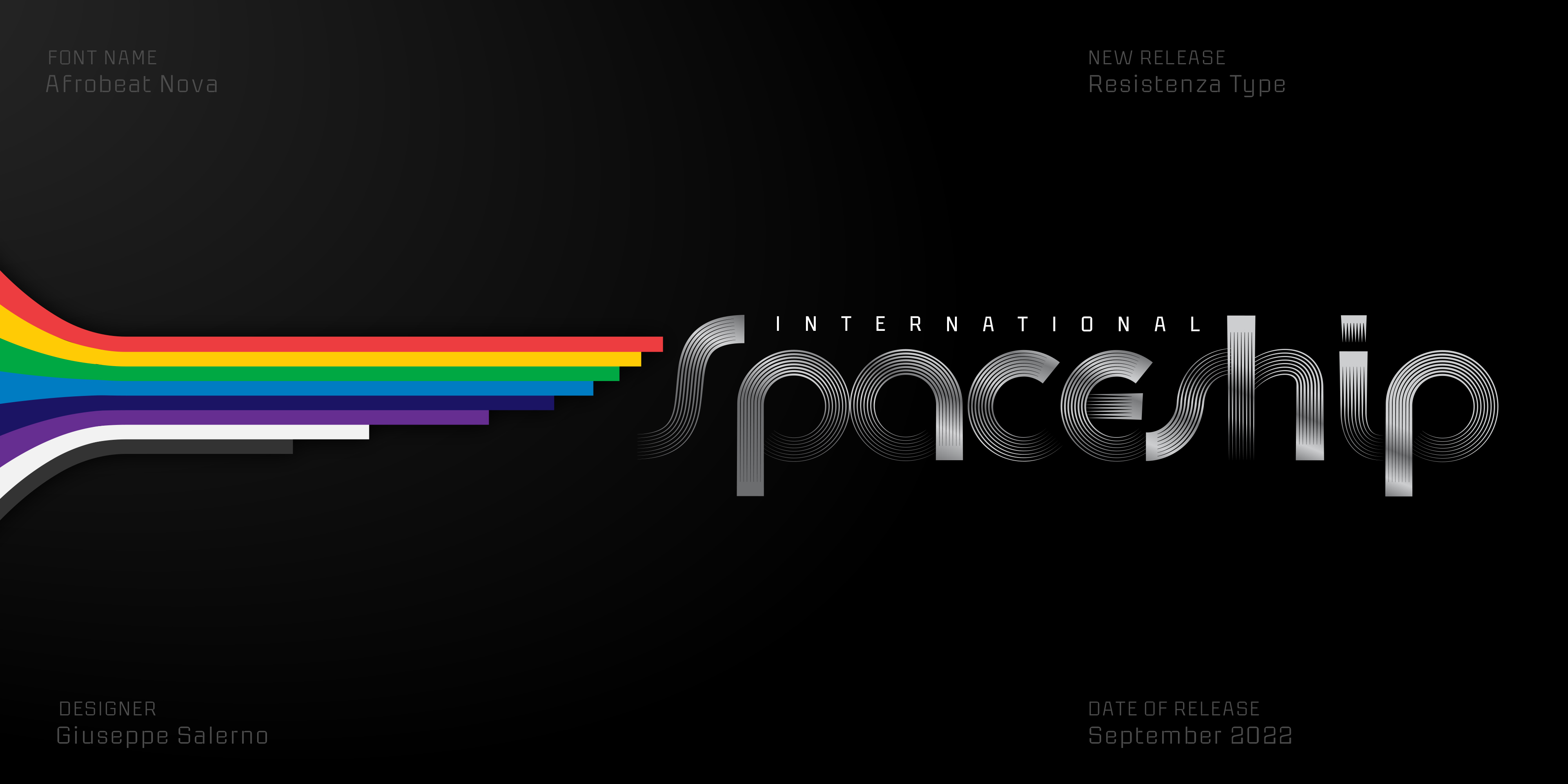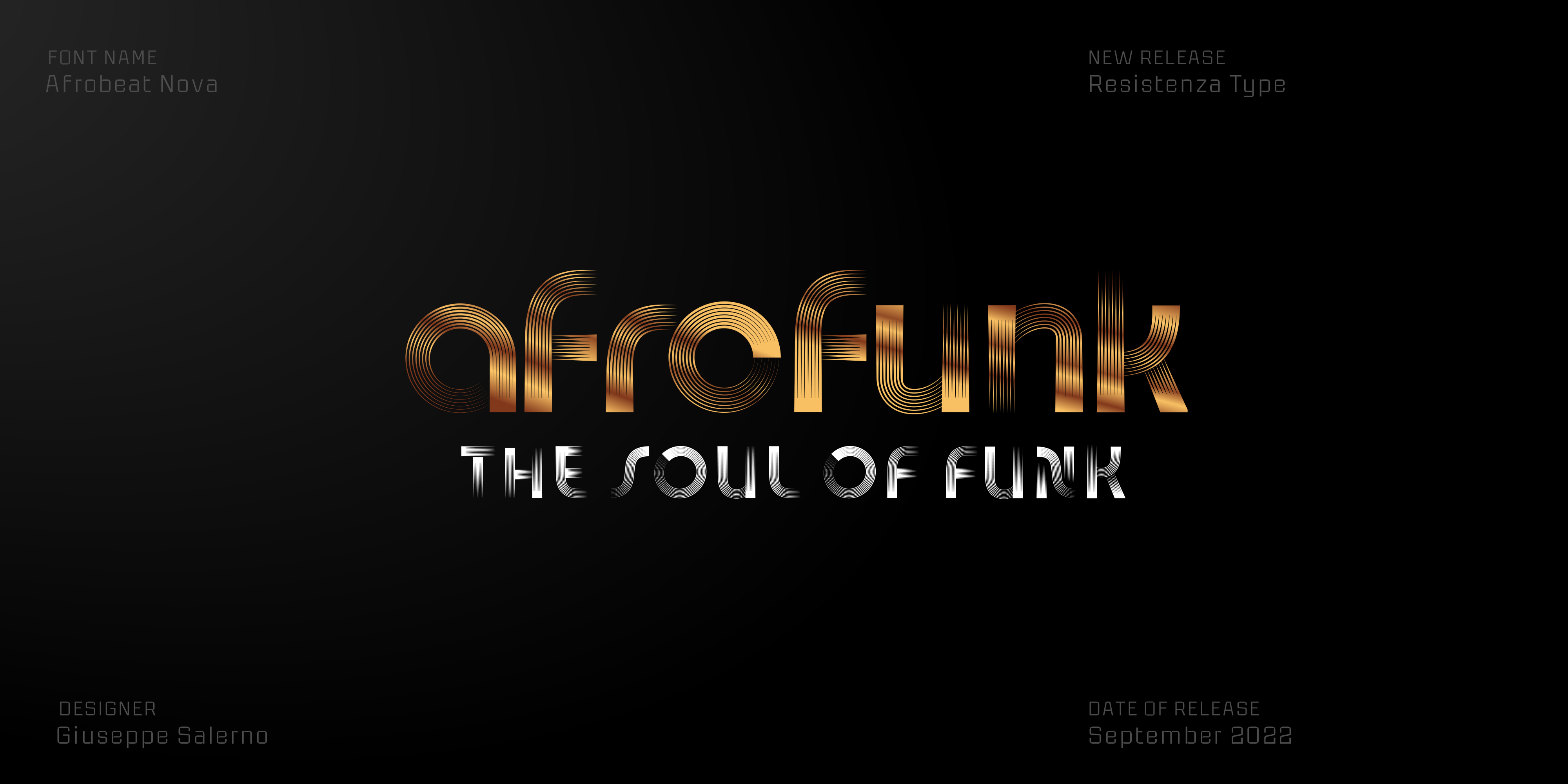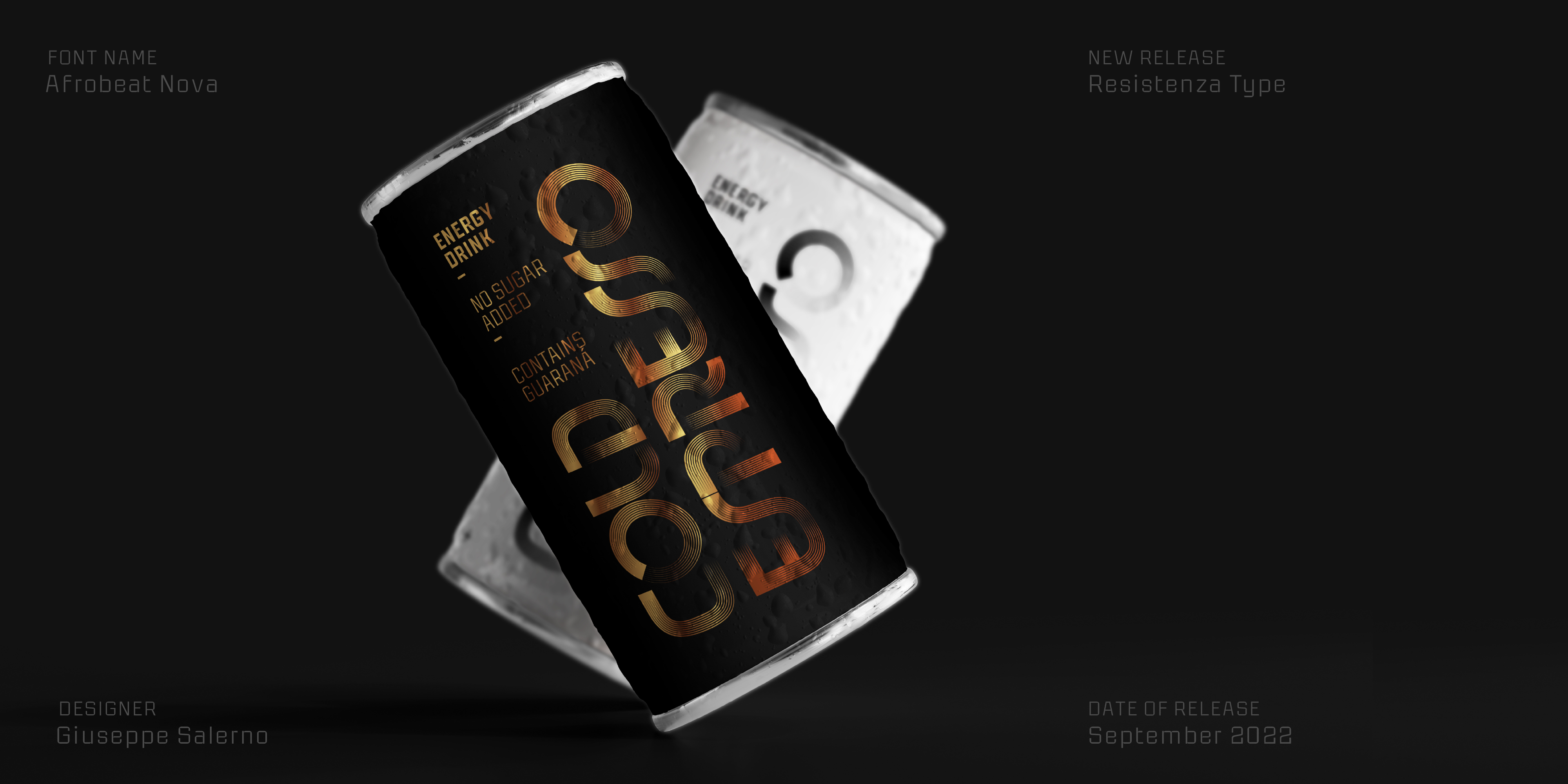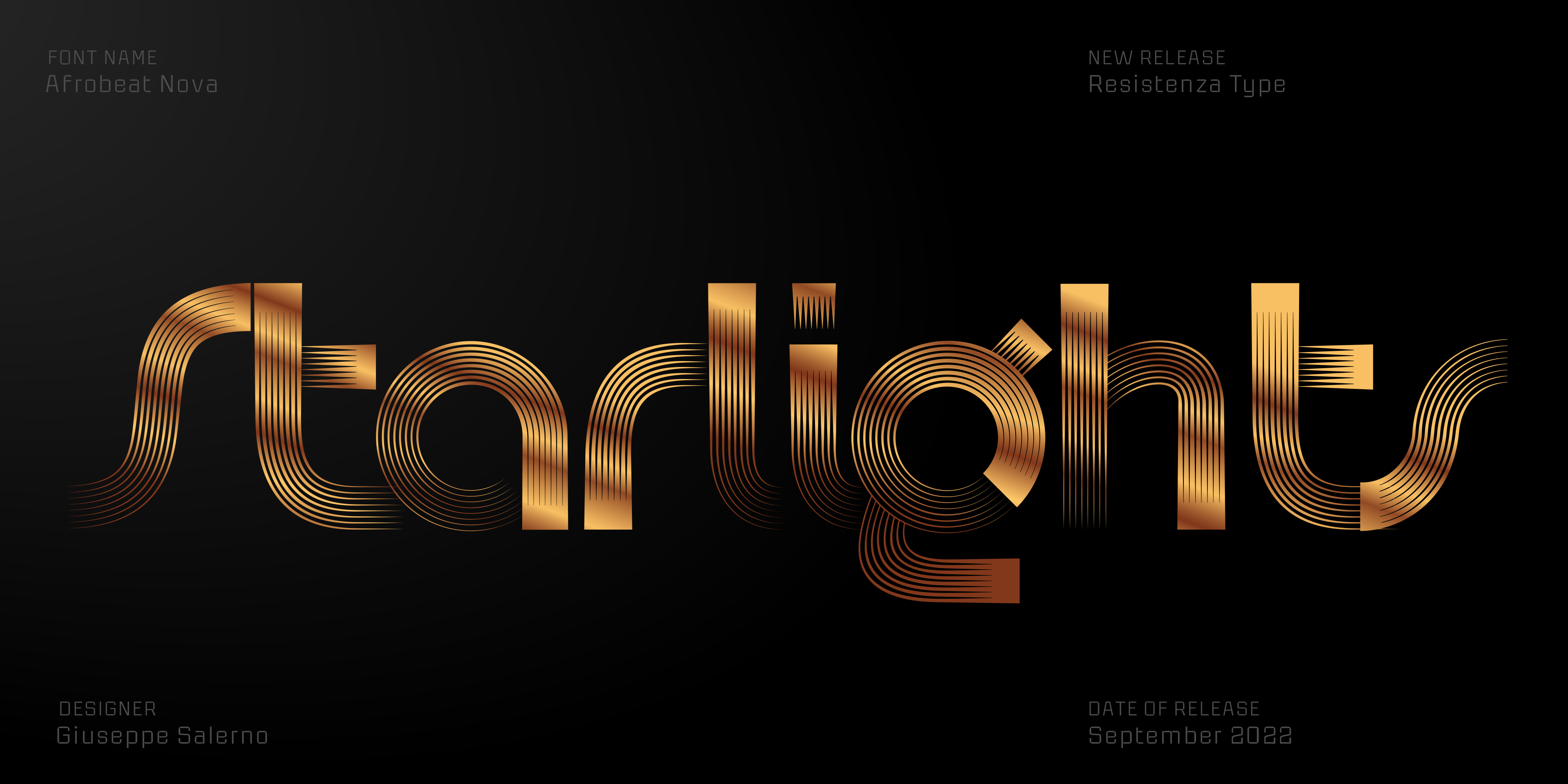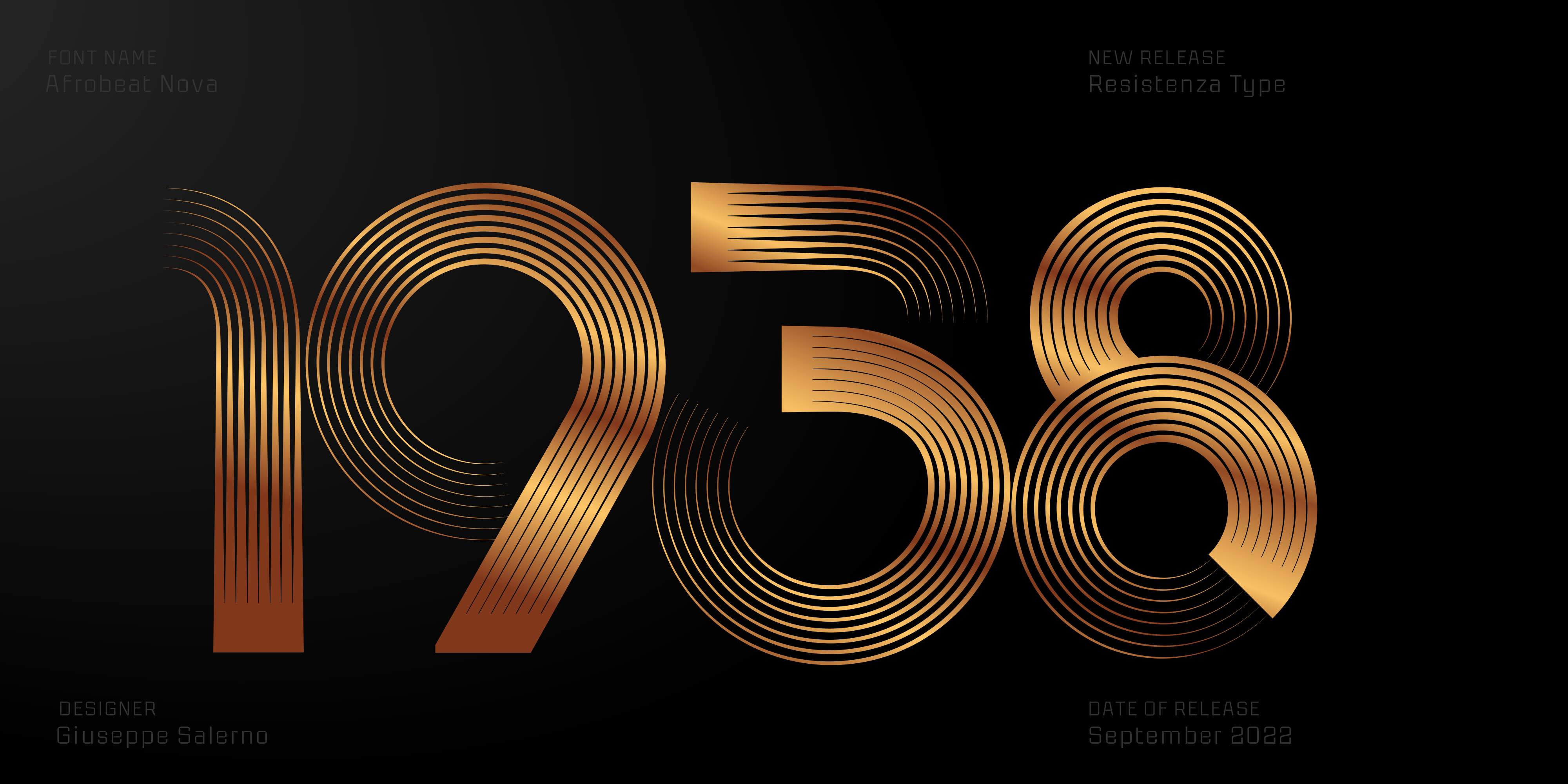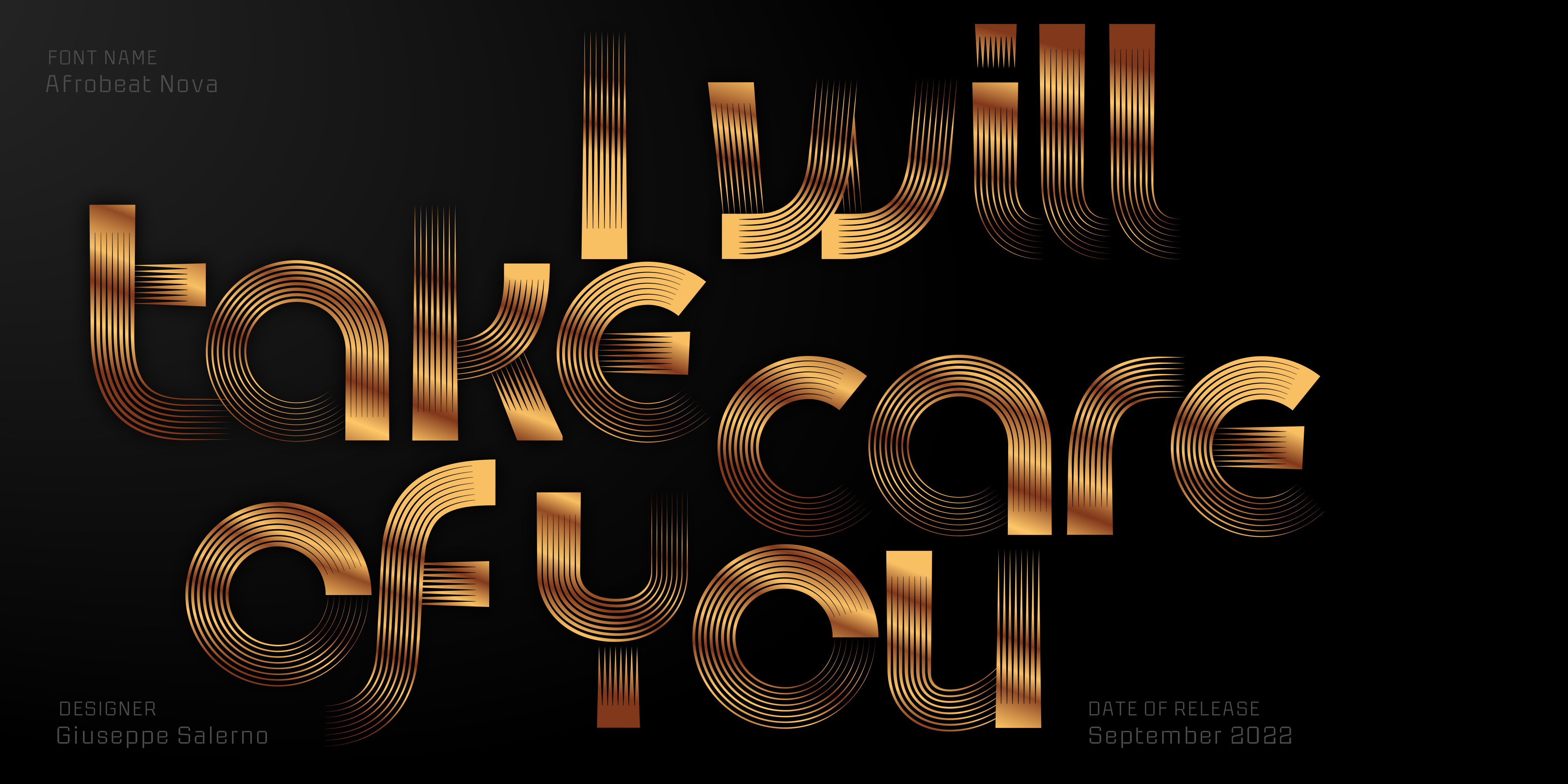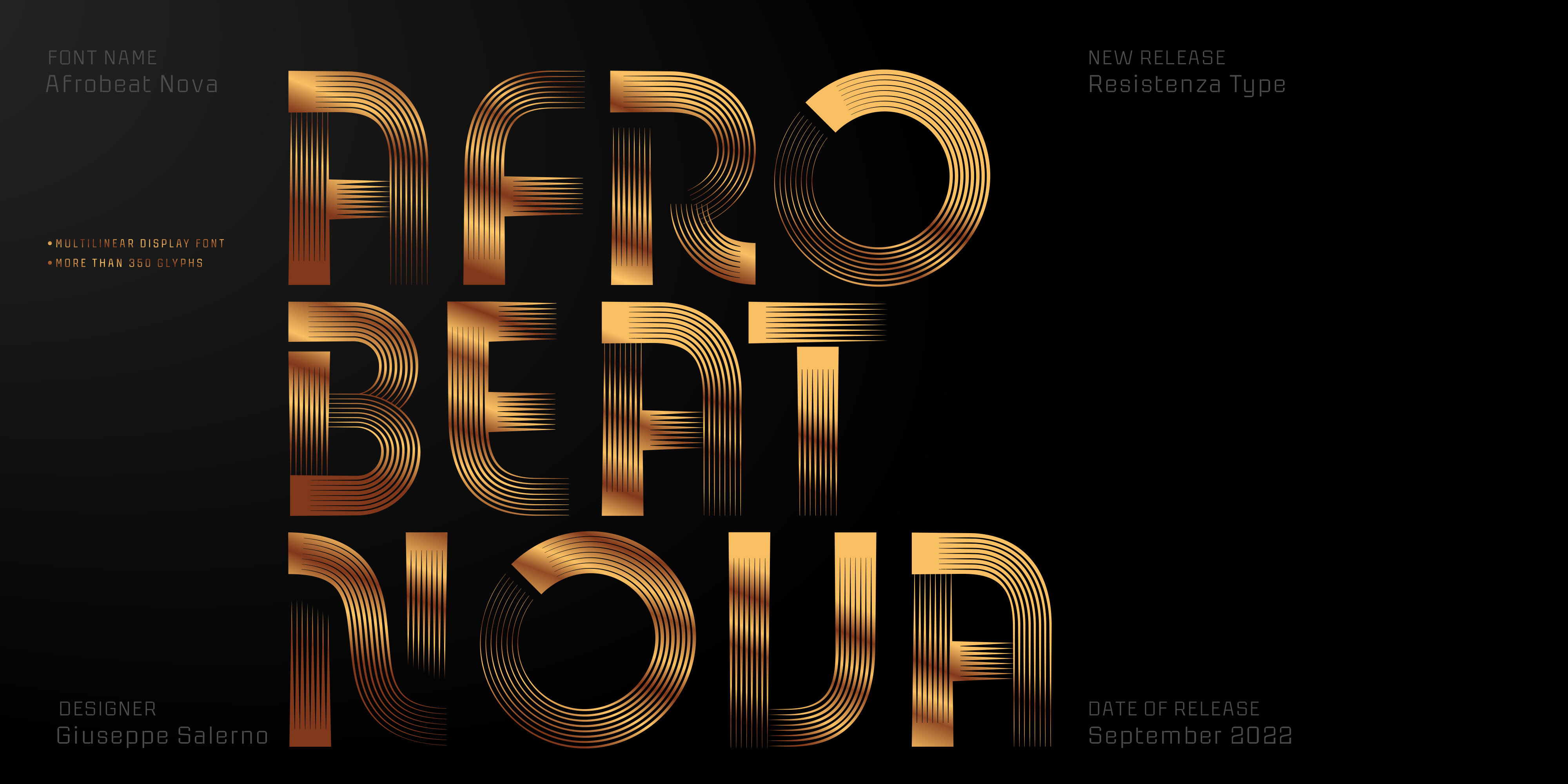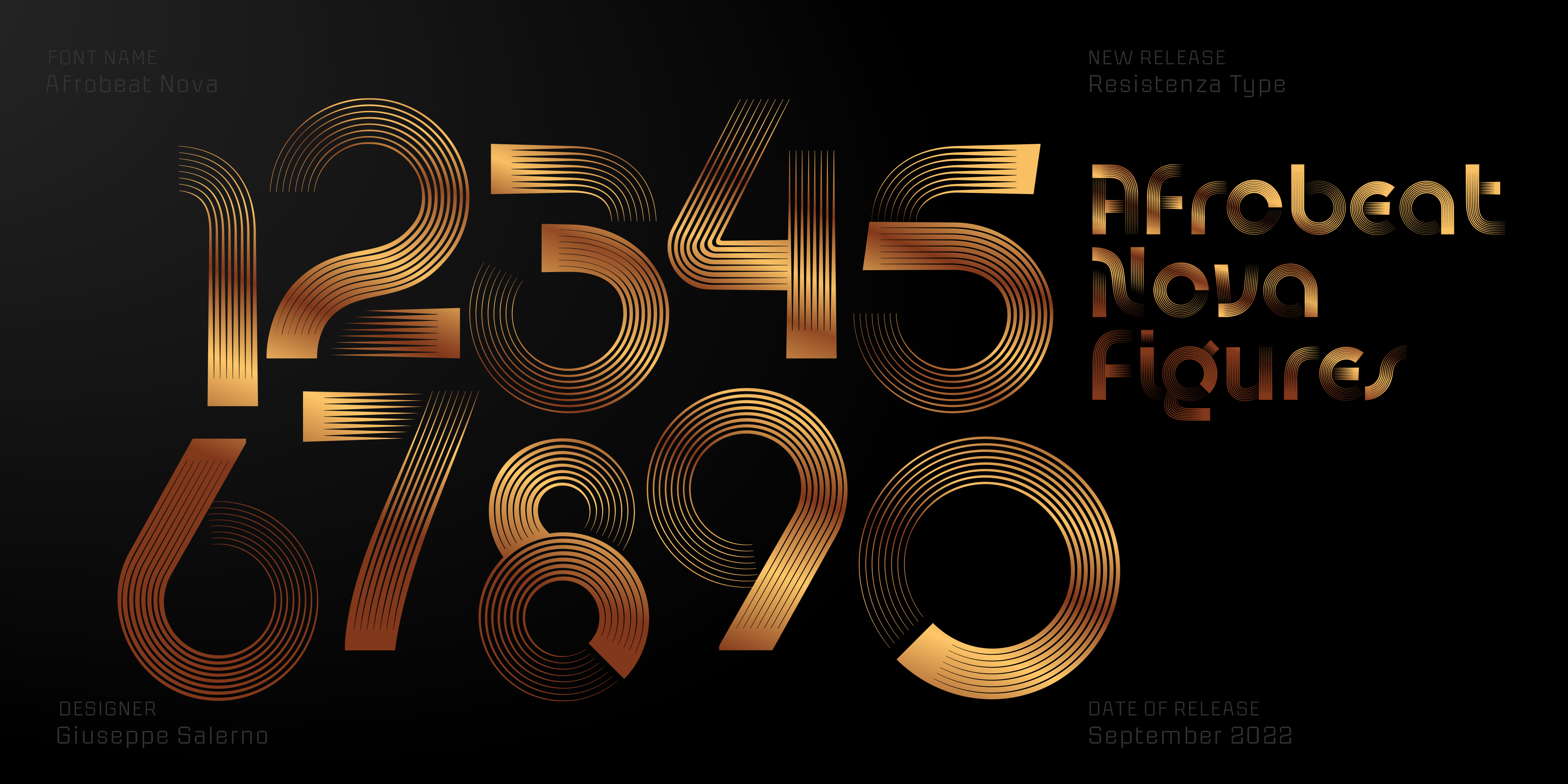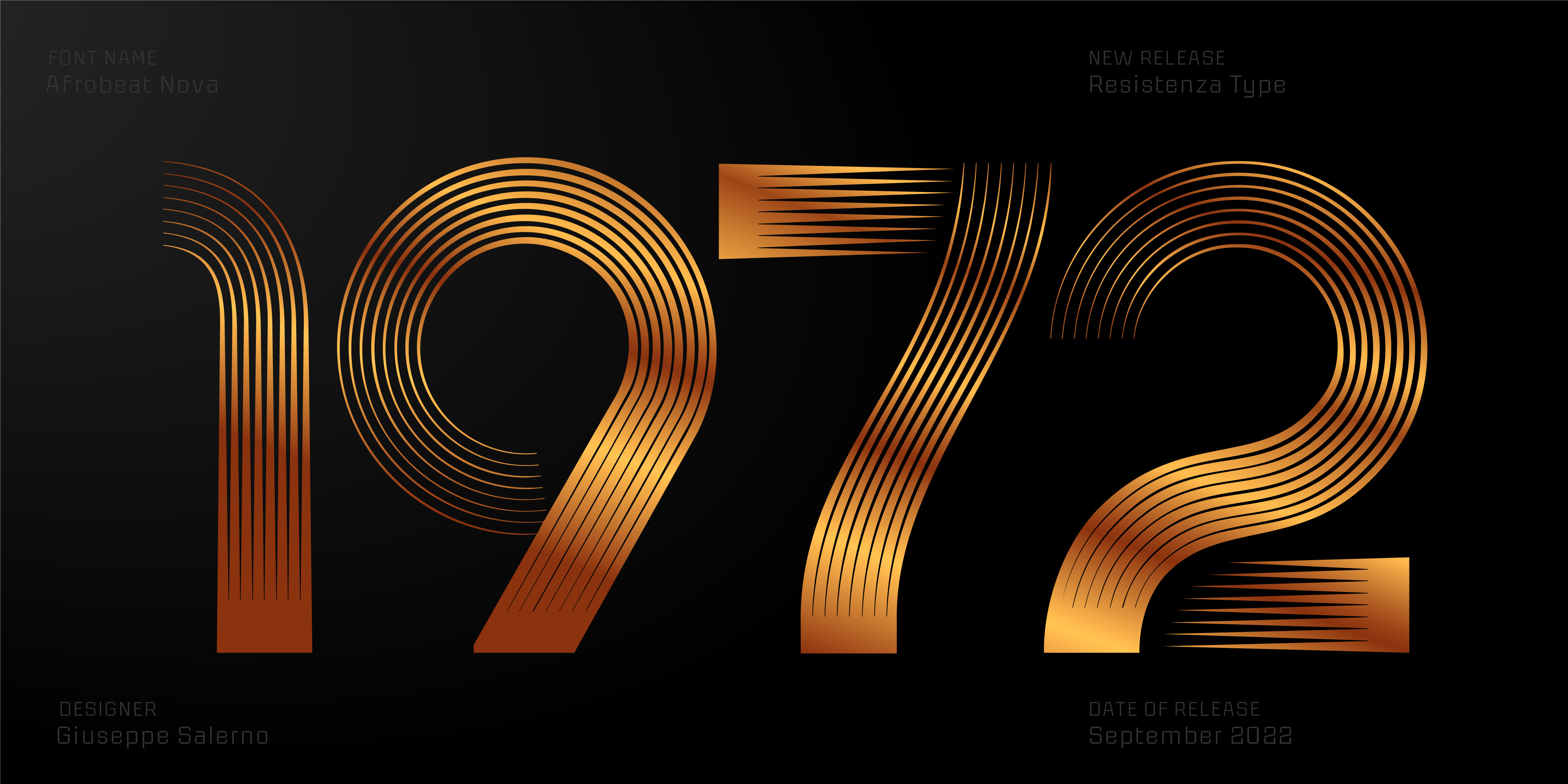
Afrobeat Nova
This font is perfect for when you want to use eye-catching big texts for anything from posters and flyers for concerts, events, parties, to CD covers, advertisements, and art, but it’s especially striking for printed projects.
Multiline Geometric Font
Afrobeat Nova
Designed by Resistenza Type Foundry
A new approach to our best seller Afrobeat released in 2010, this new version brings with it more experience. A new set of uppercase as been added and the lowercase set is fully redesigned and optimized. Nostalgic, 70s, and multilinear optical graphic elements are the recipe for this font. The pounding tribal rhythms of Afrobeat music is expressed through this psychedelic brand new font, Afrobeat. Every letter becomes art as every letter is elegantly placed side by side, like music notes, creating music for the eyes. Afrobeat is a musical style performed by many African artists such as Fela Kuti, Femi Kuti, Antibalas and many more, which is a fusion of jazz,funk, and psychedelic rock, originating from the 60s and was based on the political movements of Nigeria.
This font is perfect for when you want to use eye-catching big texts for anything from posters and flyers for concerts, events, parties, to CD covers, advertisements, and art, but it’s especially striking for printed projects.